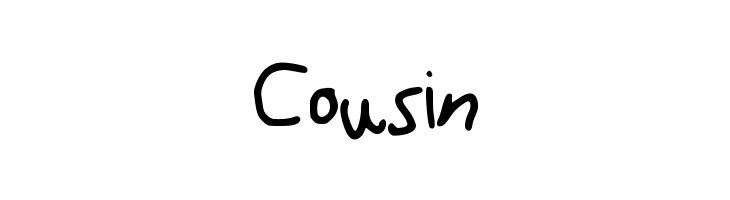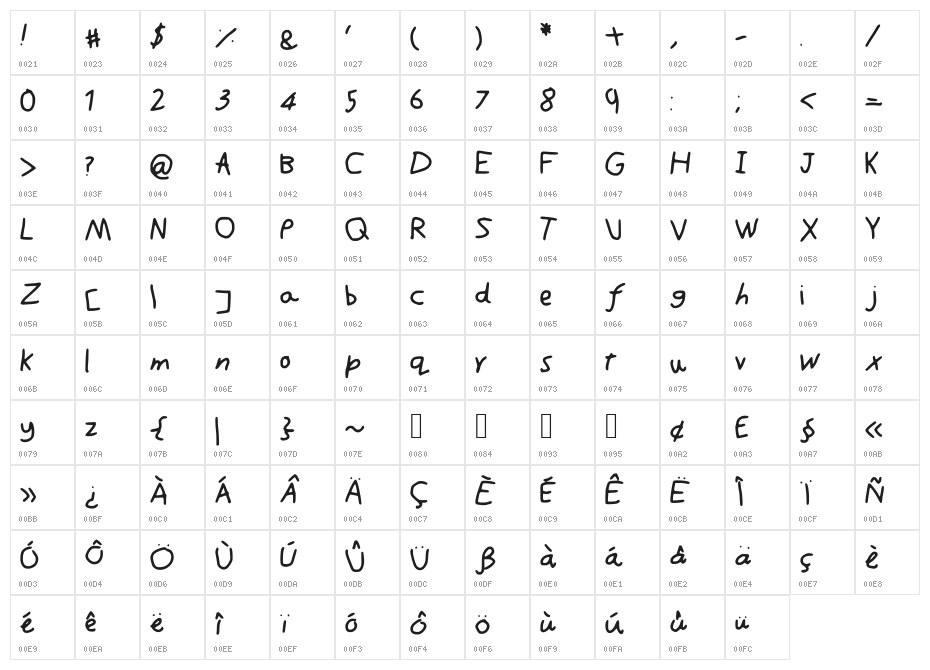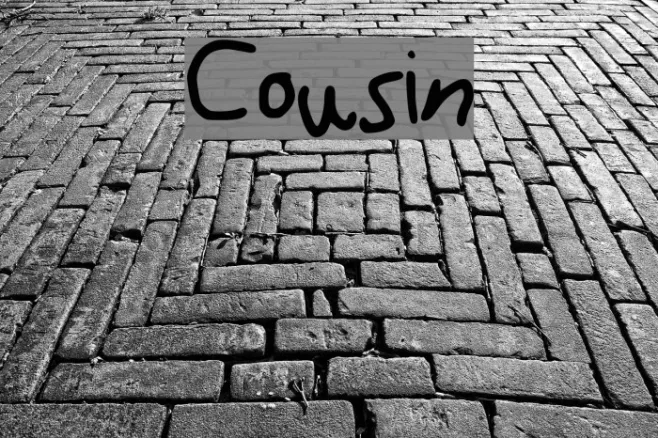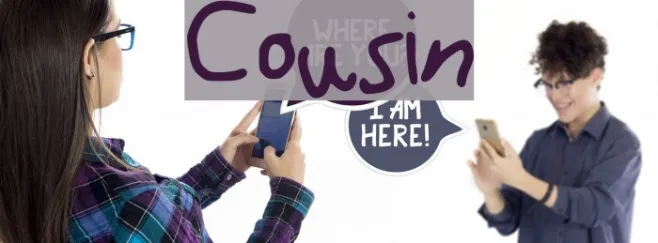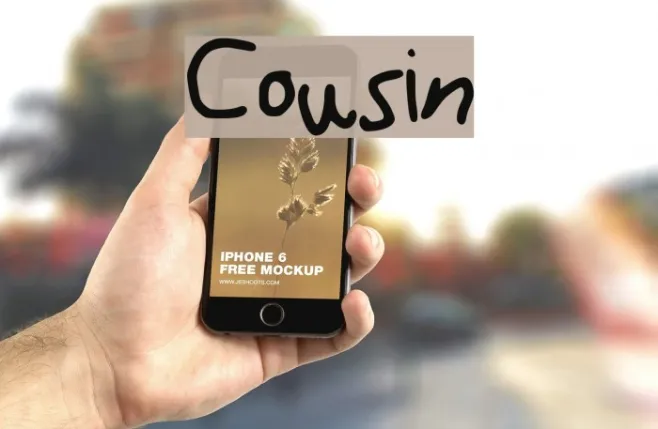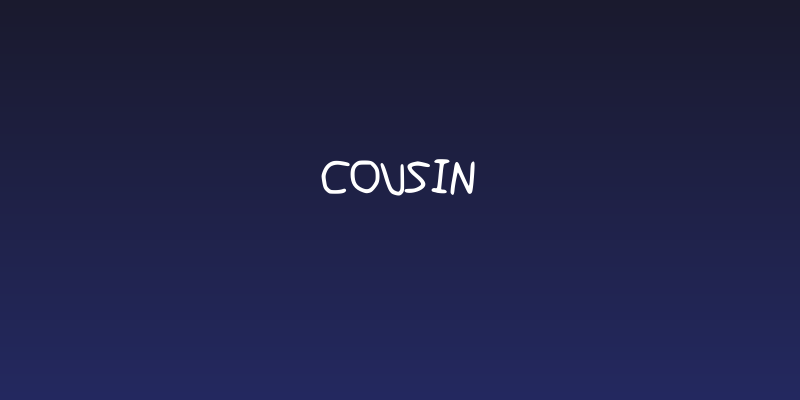
Cousin Font
Cousin Description
This font features a playful and casual handwritten style, characterized by its smooth, rounded edges and informal appearance. The letters are slightly irregular, adding a personal touch that mimics natural handwriting. The uppercase and lowercase letters maintain a consistent flow, while the numerals and special characters are designed to complement the overall aesthetic. This font exudes a friendly and approachable vibe, making it suitable for projects that require a personal or informal tone.
| Use Case | Headlines, Informal text, Personal projects |
| Proposed Projects | Ideal for greeting cards, personal invitations, children's books, and casual branding. |